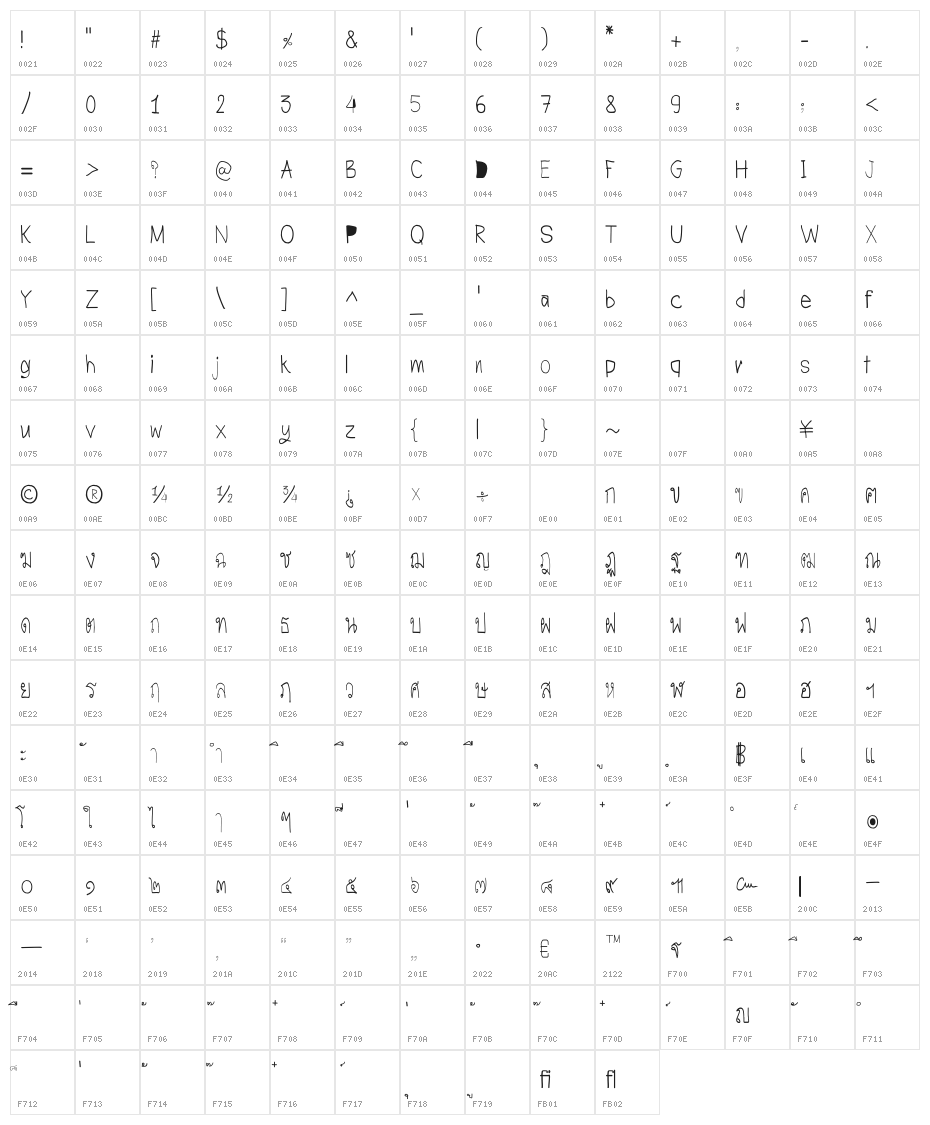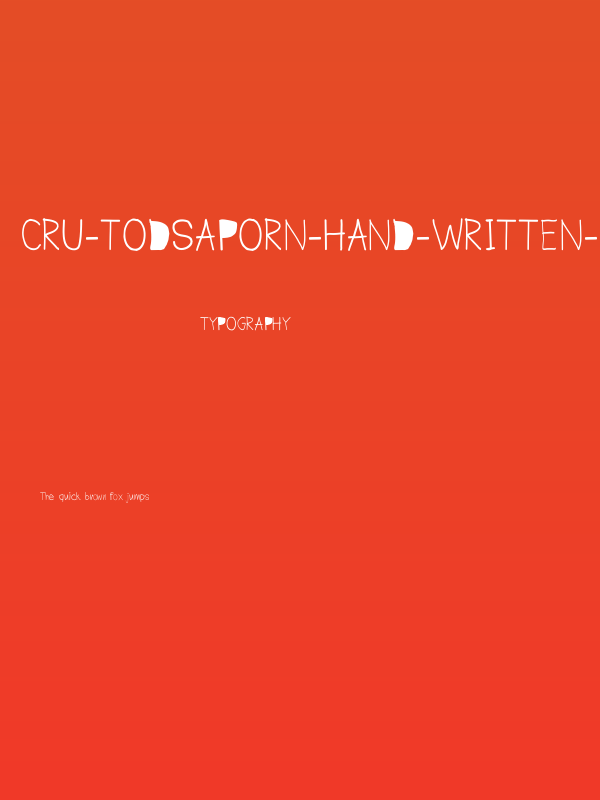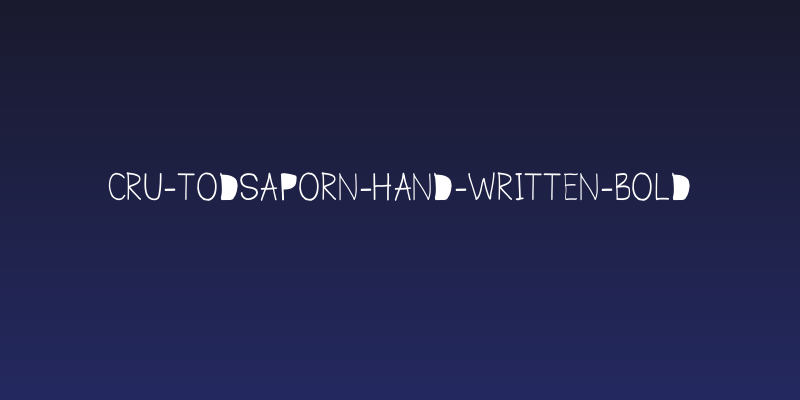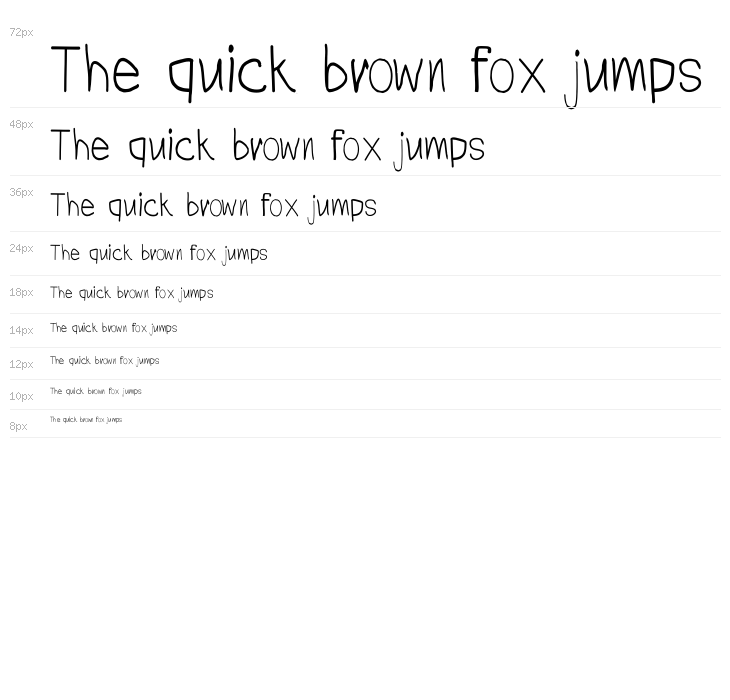
CRU-Todsaporn-Hand-Written-Bold Font
CRU-Todsaporn-Hand-Written-Bold Description
This font features a playful and informal handwritten style, characterized by its uneven strokes and whimsical appearance. The uppercase letters are bold and slightly irregular, giving a sense of spontaneity and creativity. The lowercase letters maintain a consistent style, with some characters having unique flourishes that add to the font's charm. The numbers are clear and legible, while the special characters retain the same playful aesthetic. This font is ideal for projects that require a personal touch or a casual, friendly vibe.
| Proposed Projects | Ideal for greeting cards, children's books, casual branding, and creative social media graphics. |